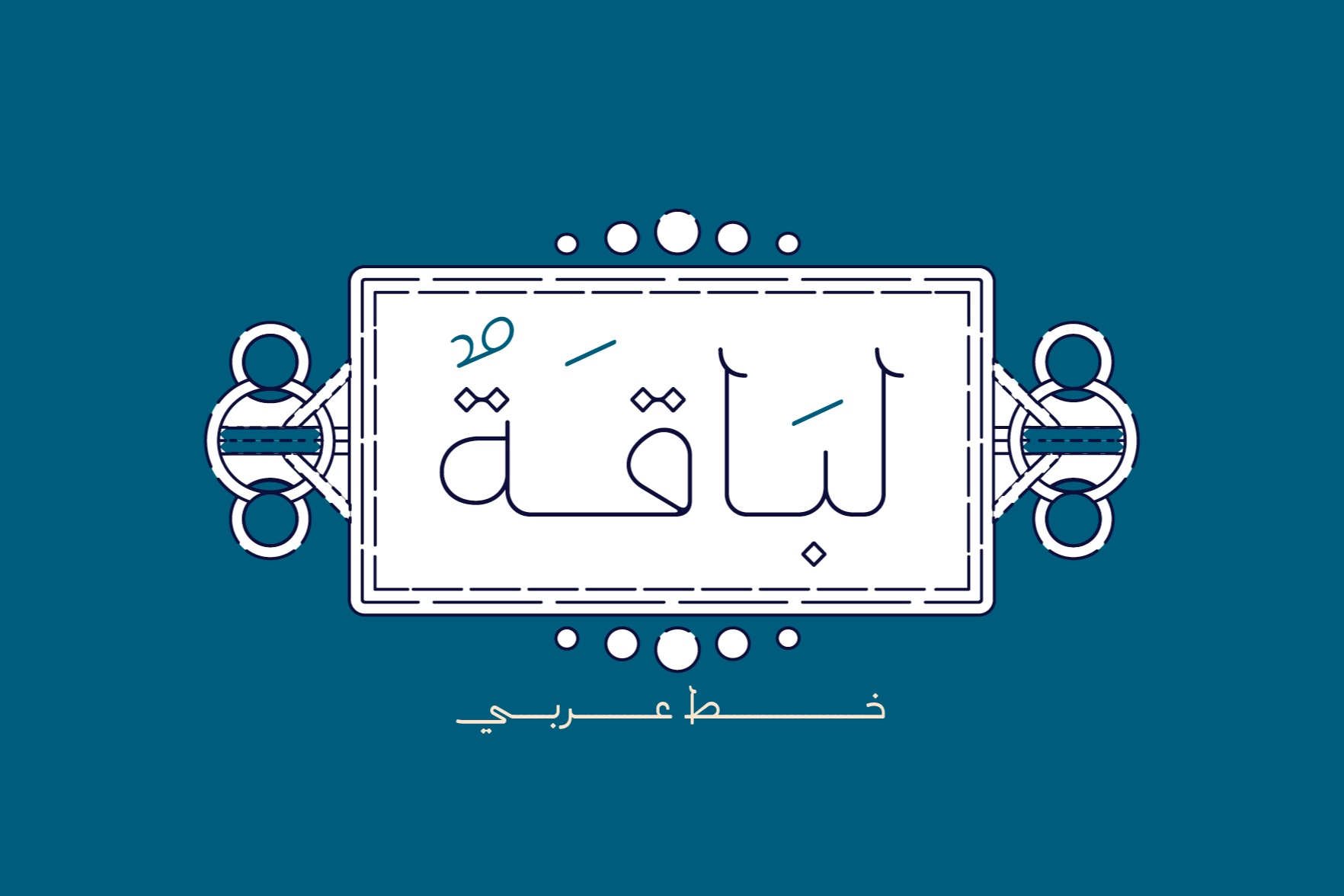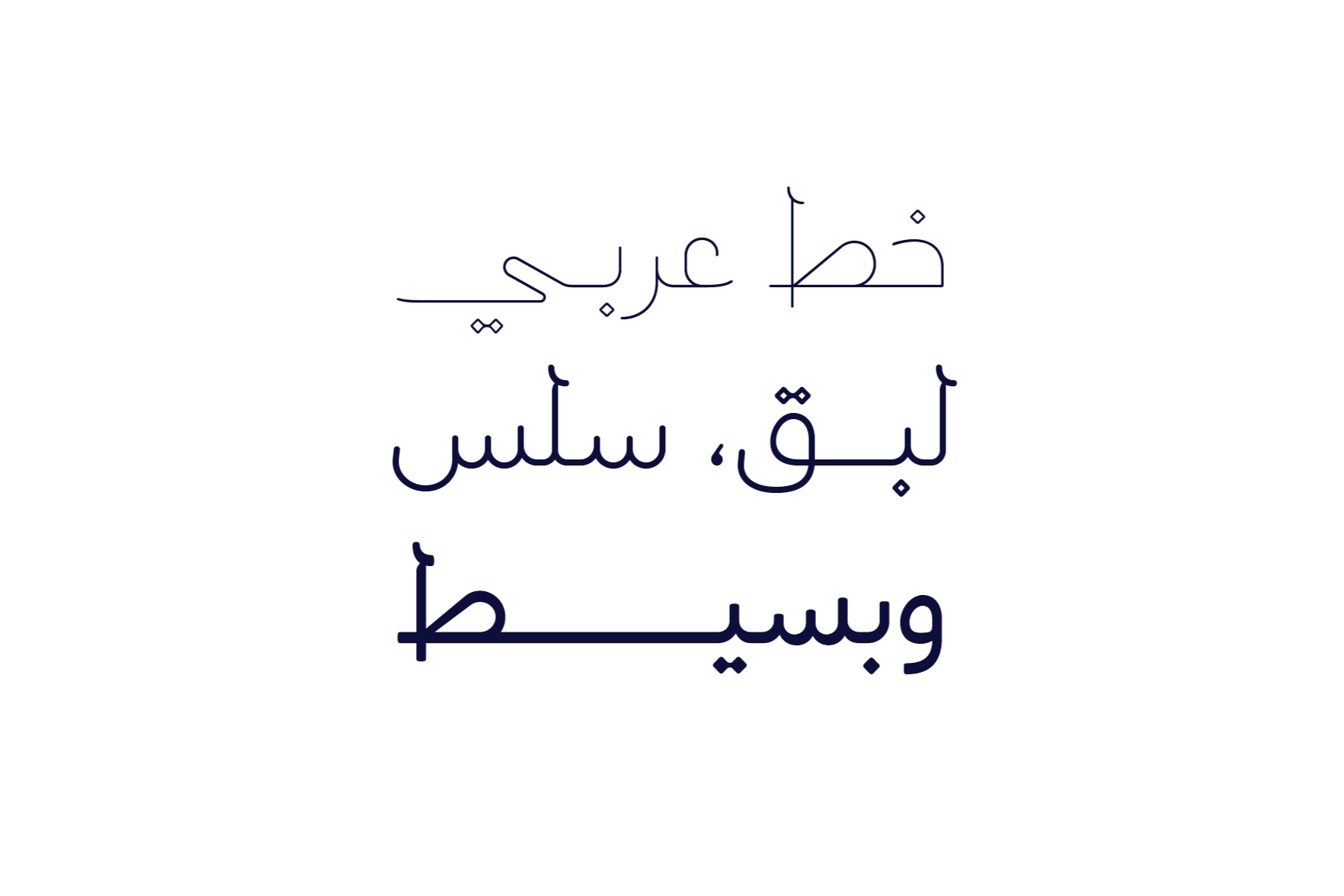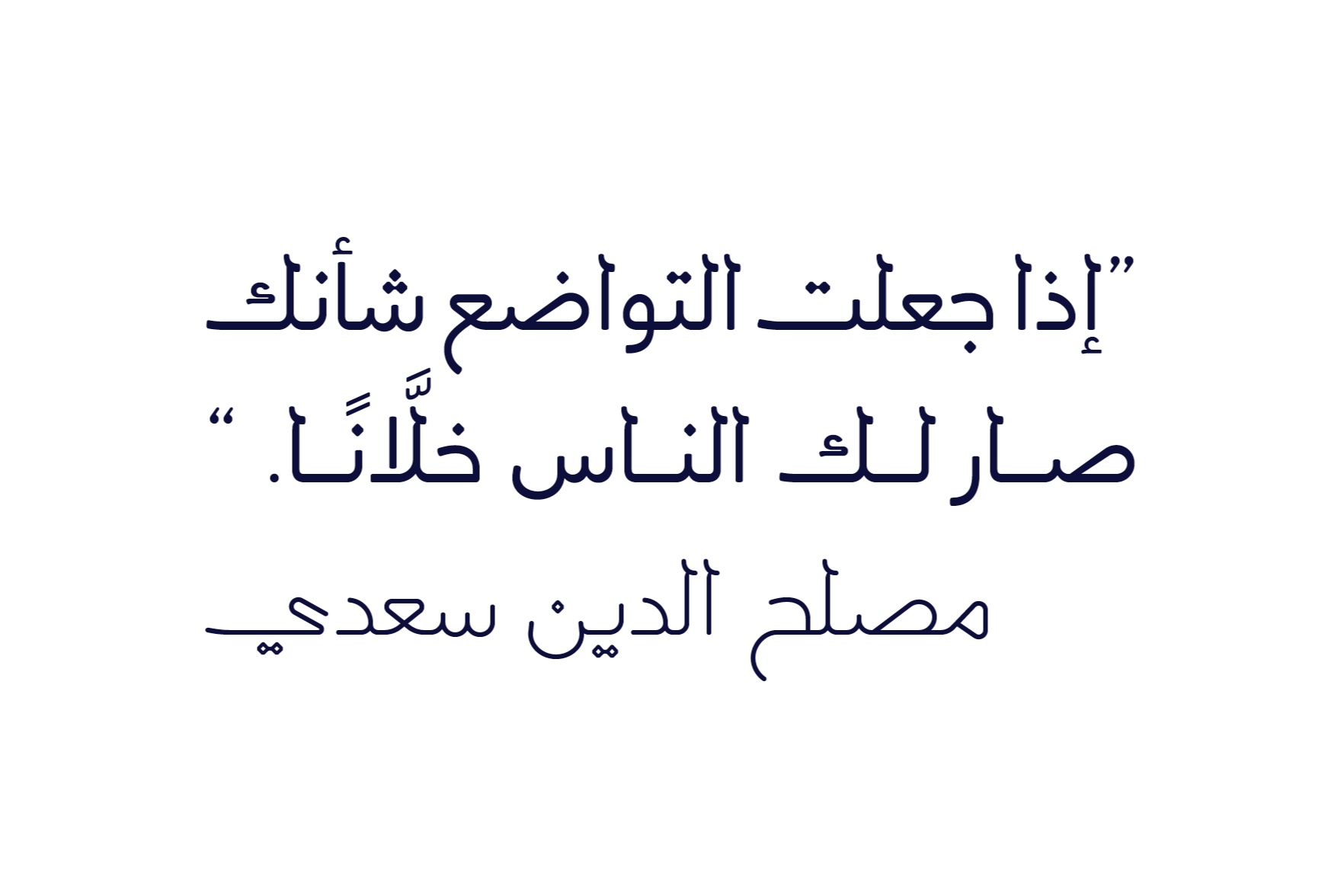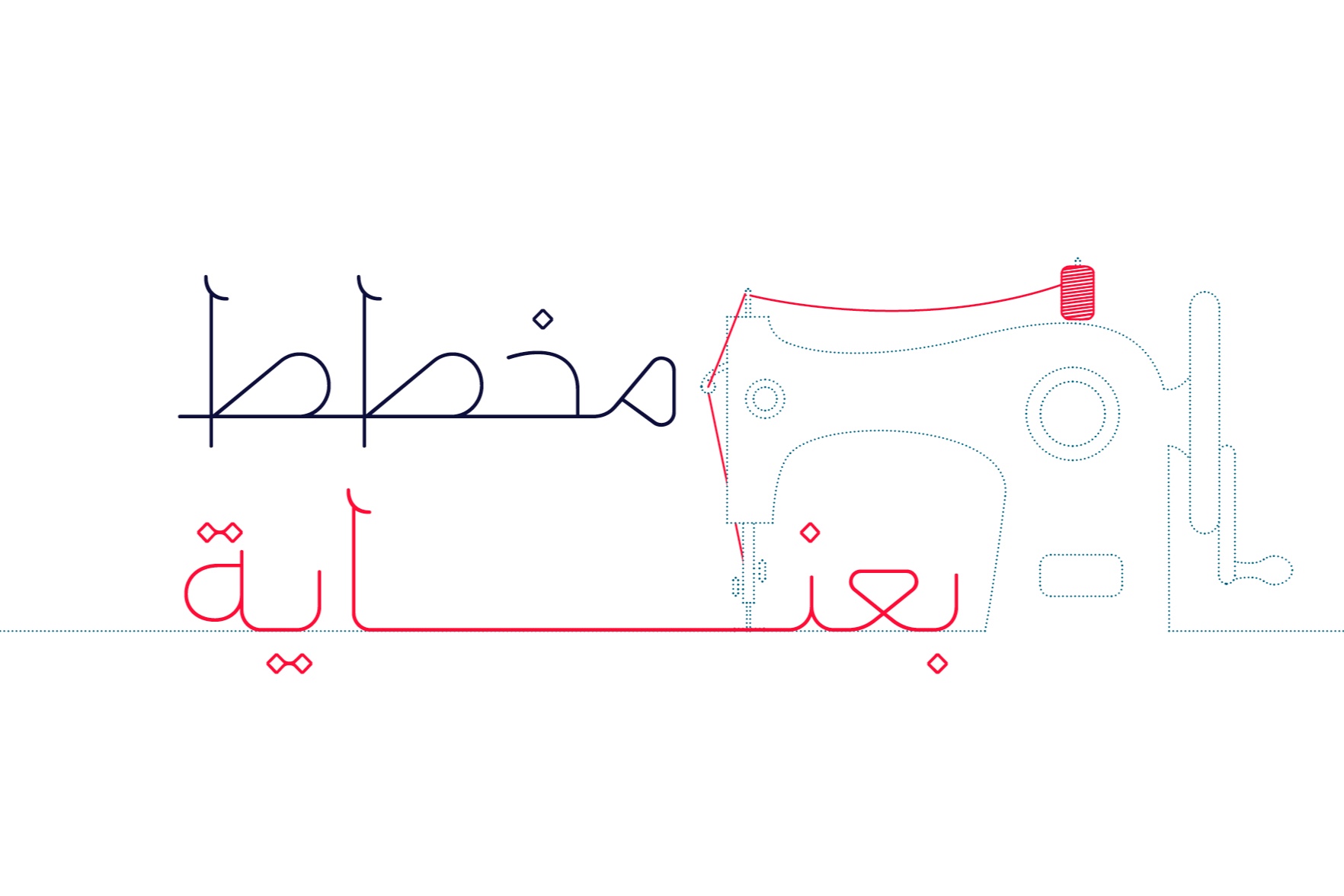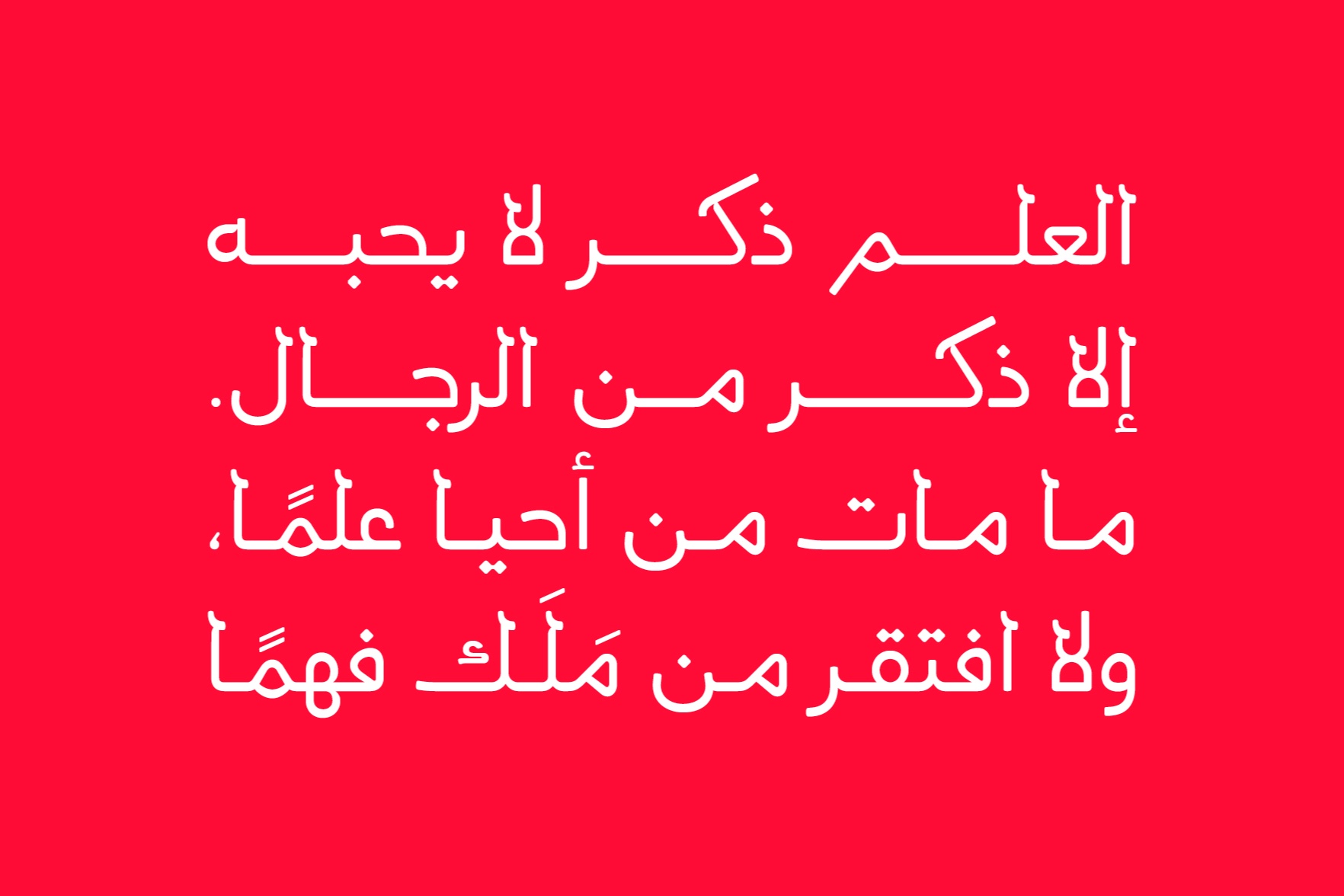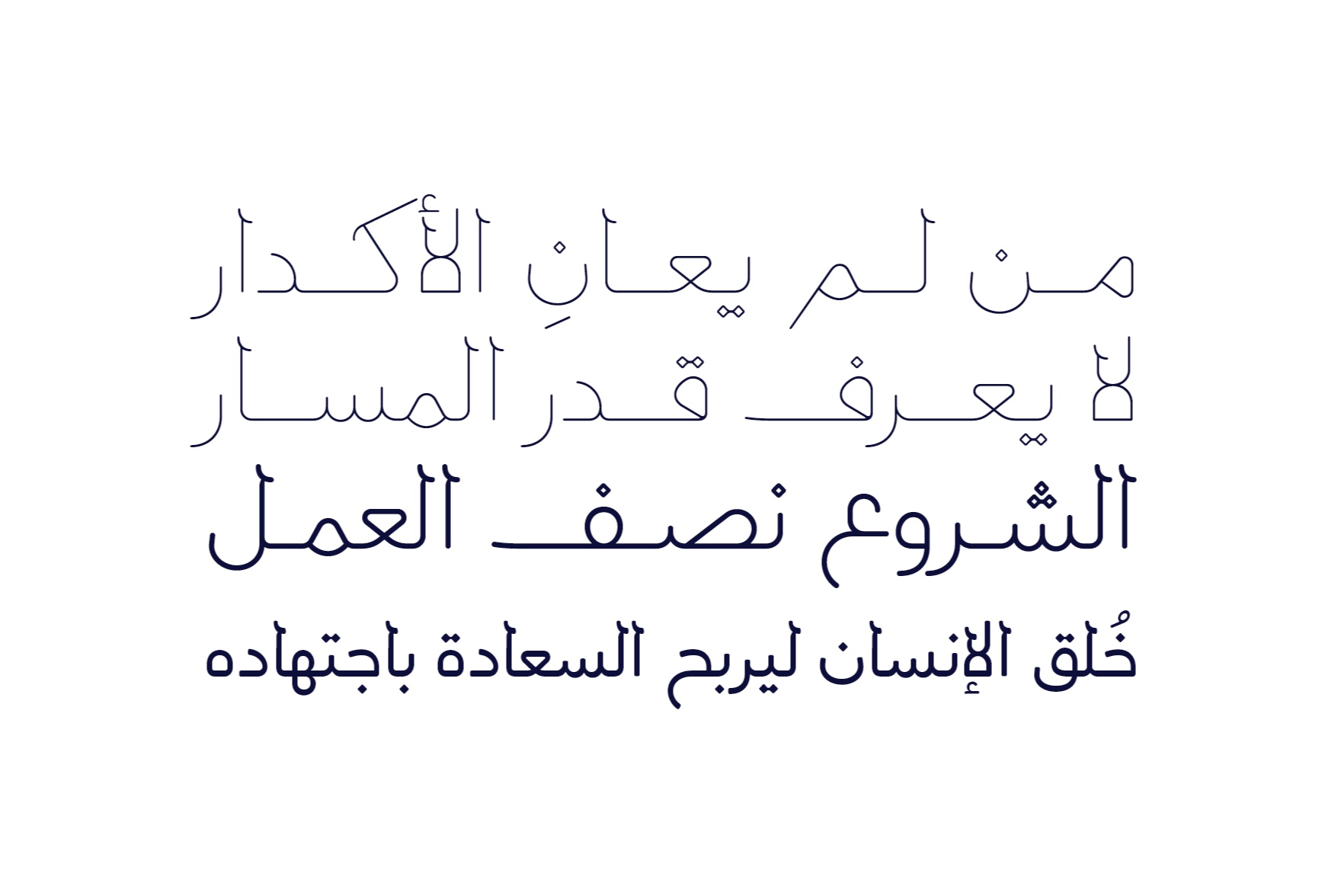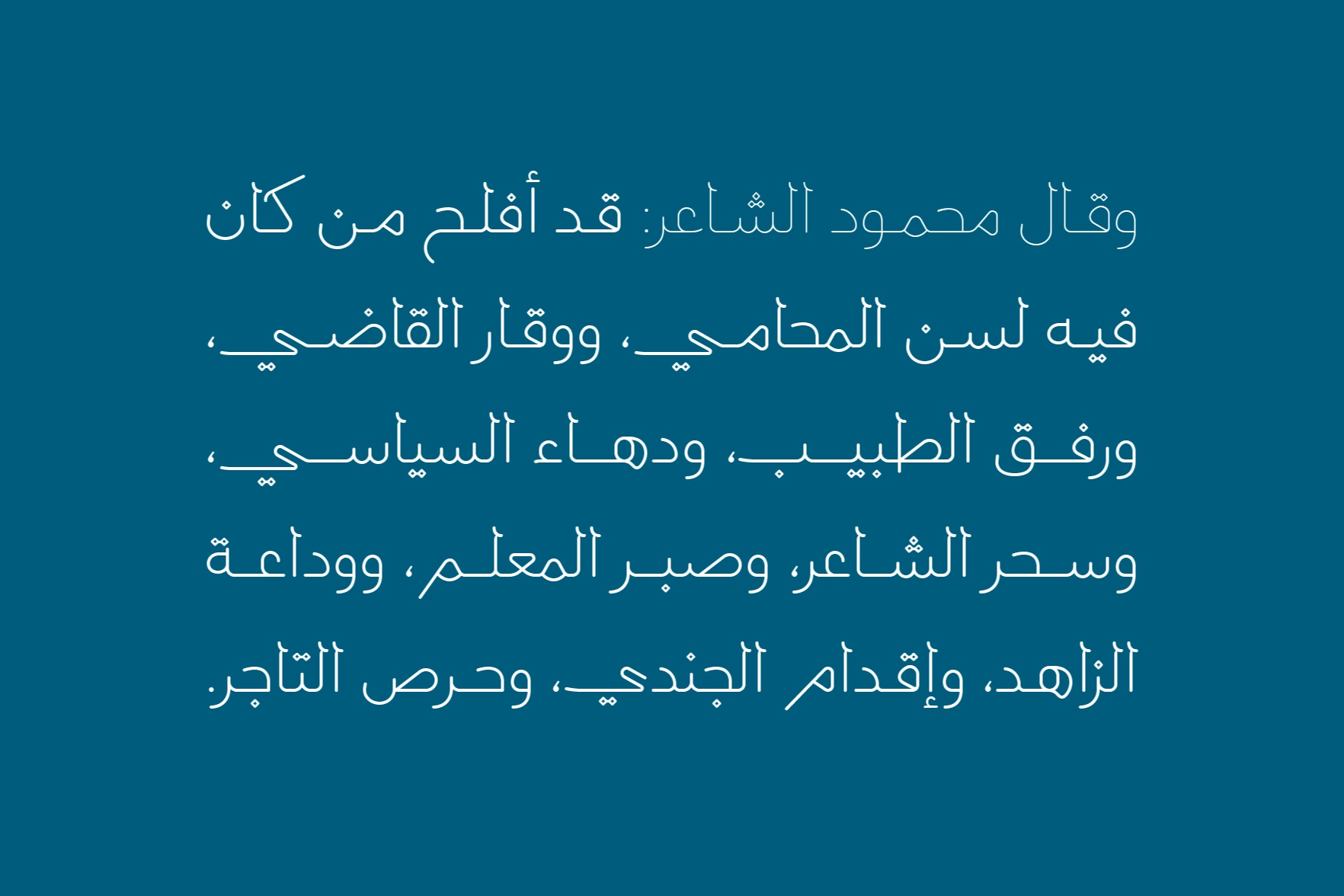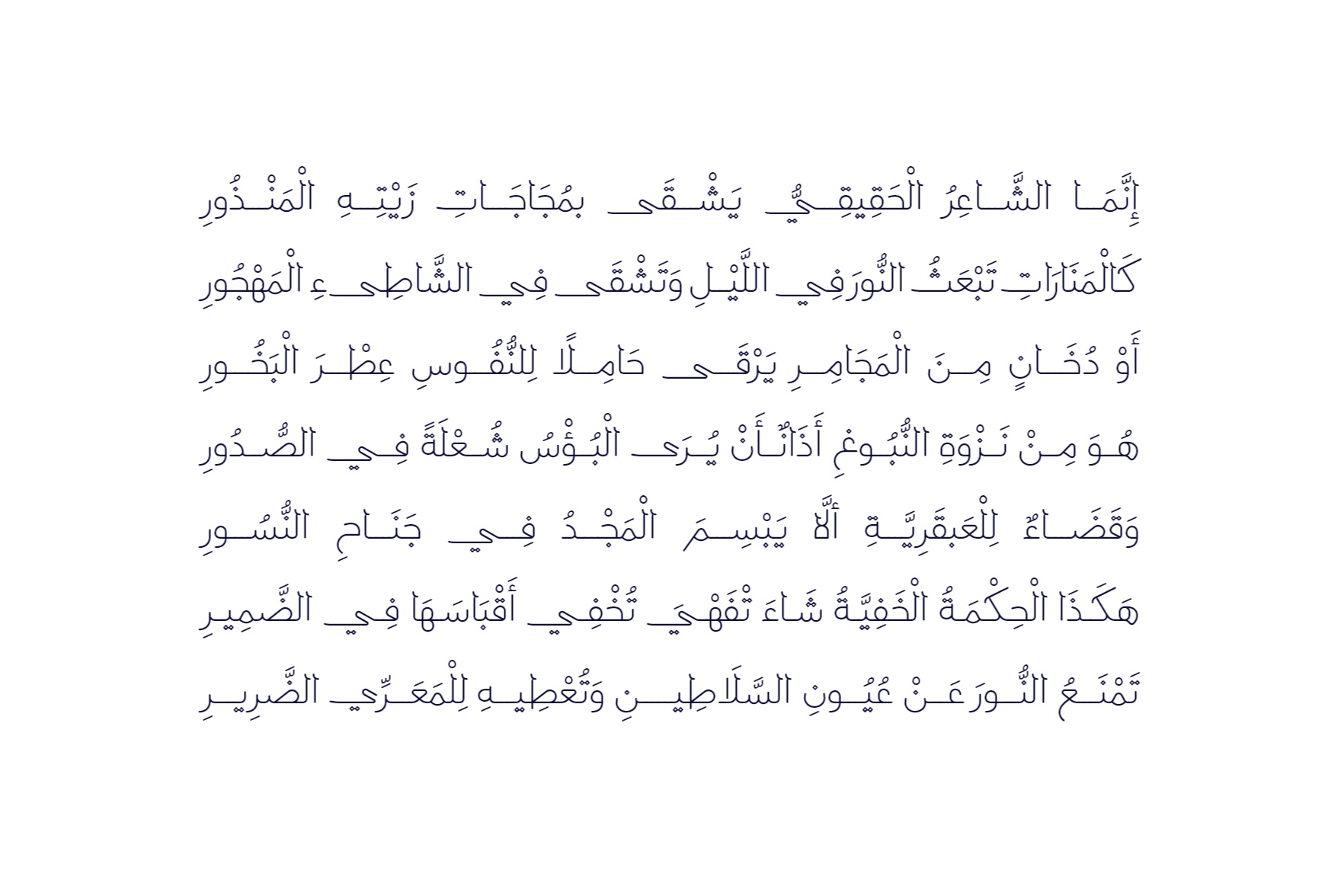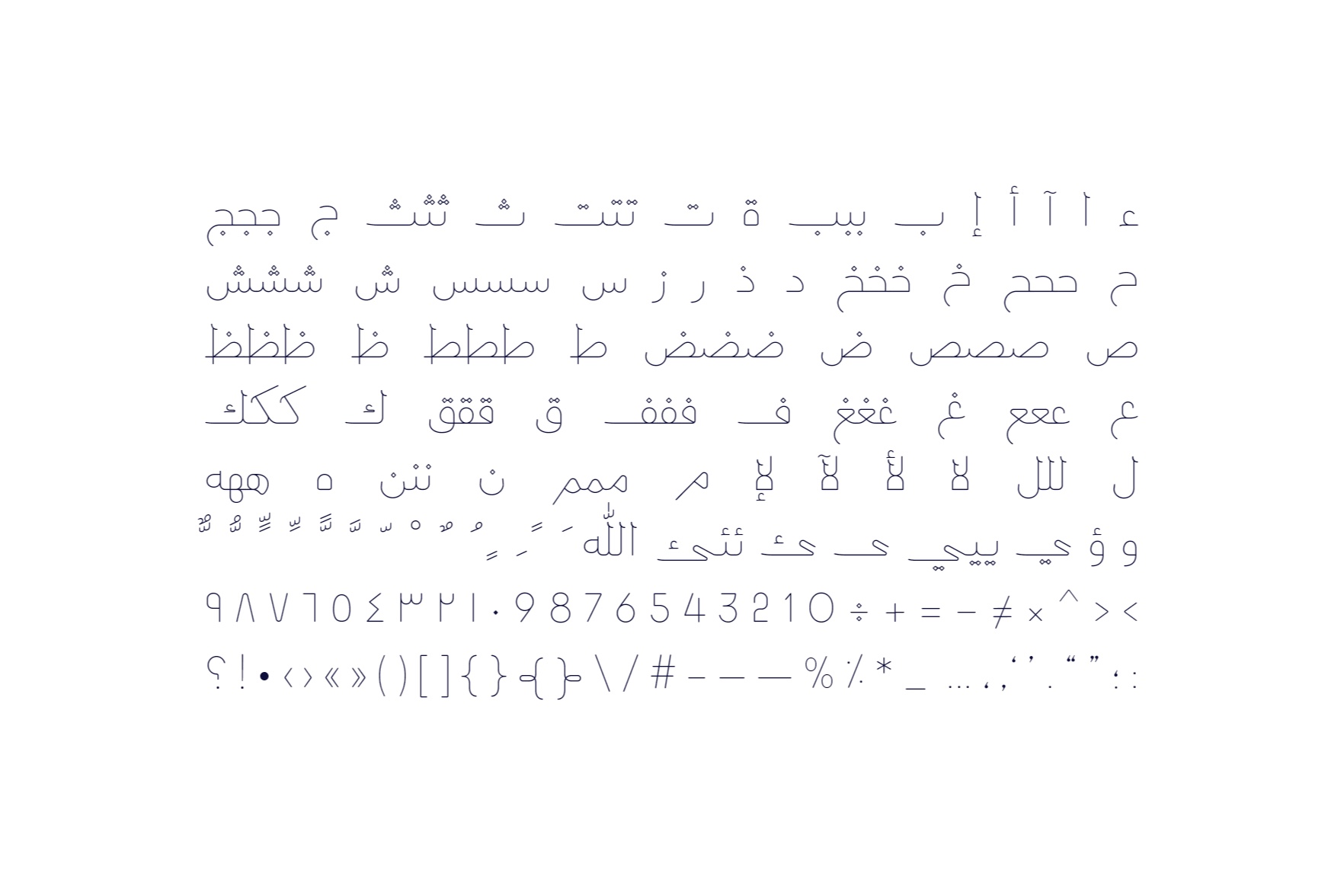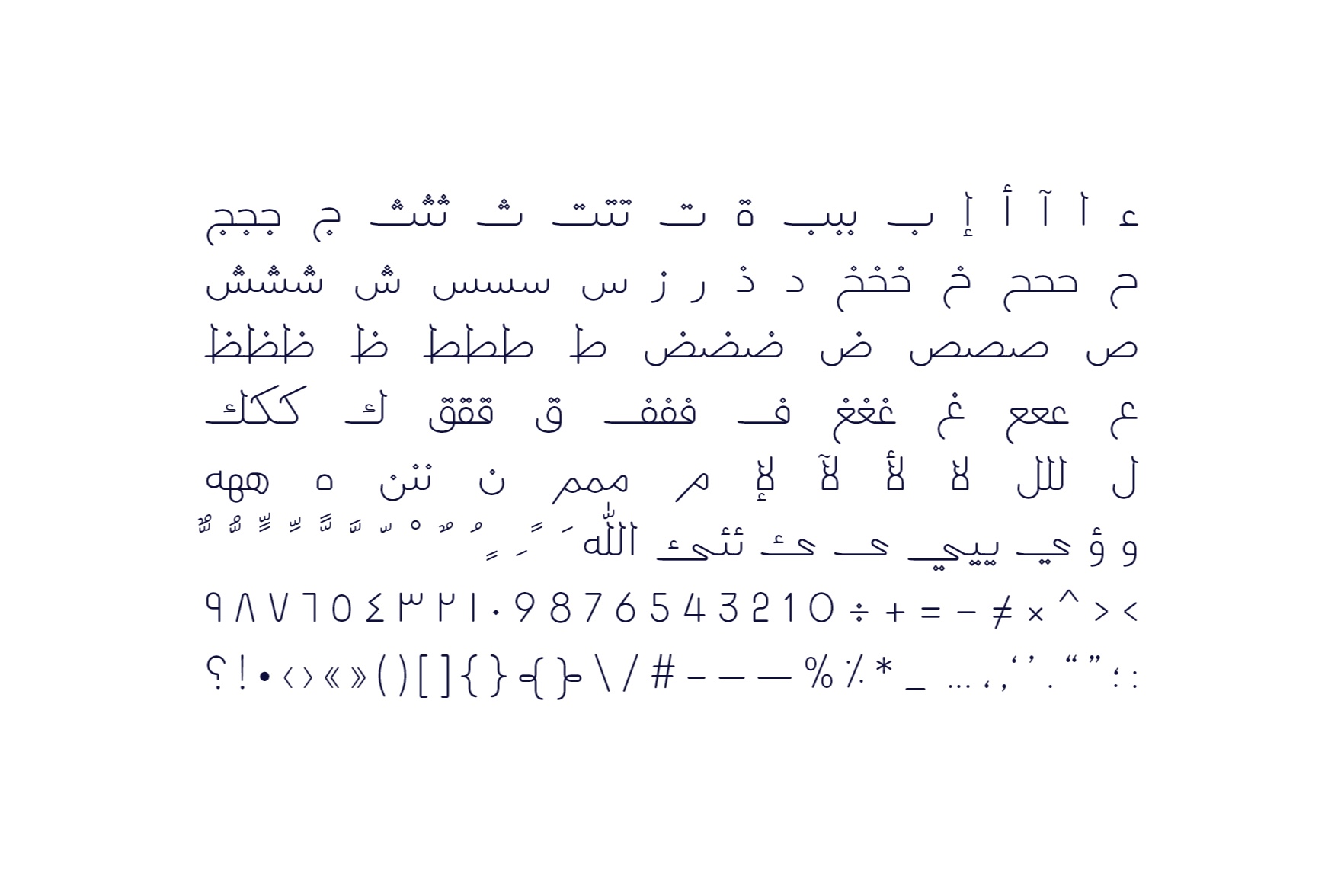
Labaqah (Arabic for “Tactfulness”) is an Arabic typeface that blends the traditional Naskh style with a subtle handwriting touch. The typeface comes in three weights: Light, Regular, and Bold, and is suitable for web, print, and mobile applications.
280+ Characters
Light, Regular, and Bold